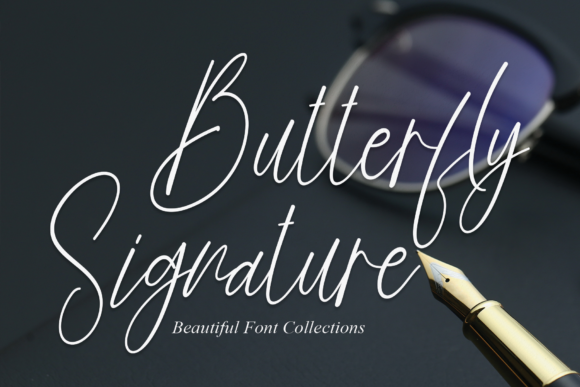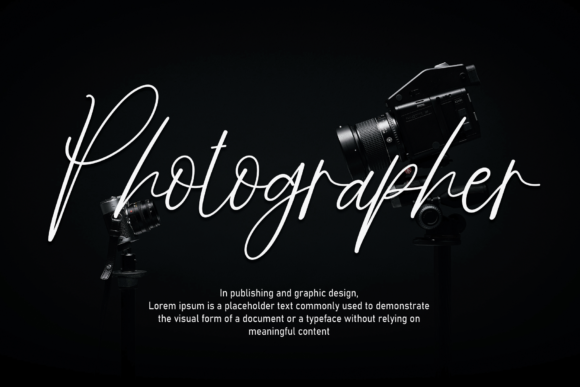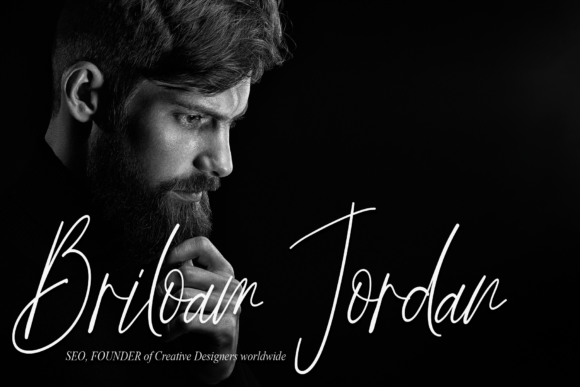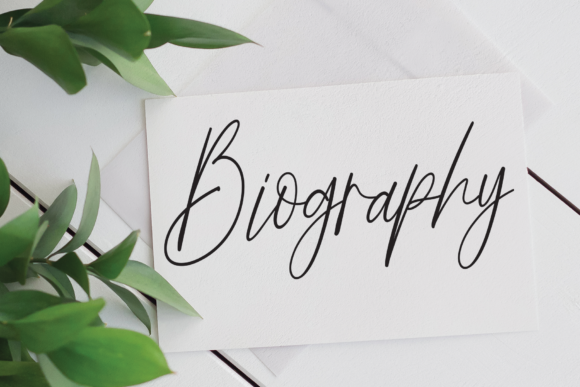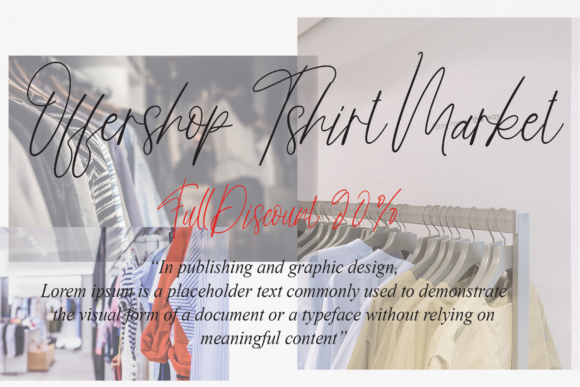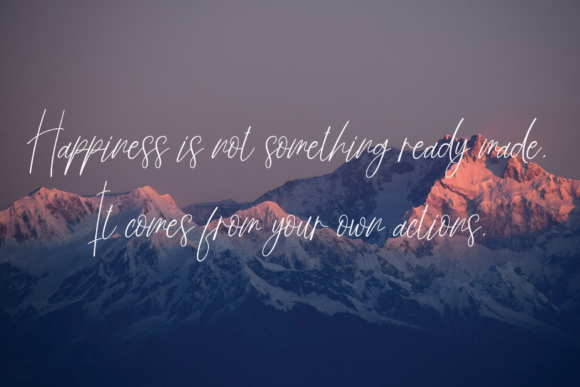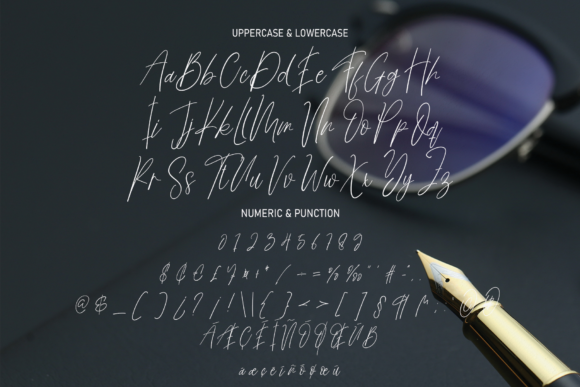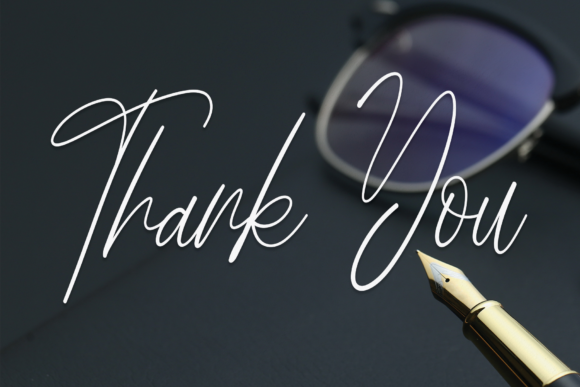
Butterfly Signature Font
About Butterfly Signature Font
Butterfly Signature is an exquisite and fashionable script font that exudes elegance and charm. Its delicate and flowing letterforms make it the perfect choice for a wide range of branding projects, adding a touch of sophistication to logos, t-shirt designs, creative products, and more.
Imagine using Butterfly Signature for a logo design. Its graceful and stylish script can help create a memorable and visually appealing brand identity. Whether it’s for a luxury fashion brand, a boutique café, or a beauty salon, the font’s delicate strokes and intricate details can convey a sense of refinement and exclusivity.
For t-shirt printing, Butterfly Signature can add a unique and artistic flair to apparel designs. Whether it’s a statement tee, a casual fashion item, or a custom-made piece, the font’s fashionable and delicate script can transform the design into a wearable work of art. It can capture attention and make a statement, setting the brand or message apart from the crowd.
Creative products such as packaging, labels, and product tags can benefit from Butterfly Signature’s distinctive style. Its elegance and charm can enhance the overall aesthetic of the product, making it stand out on the shelves and adding a sense of luxury and sophistication to the customer’s experience. Whether it’s a skincare line, artisanal chocolates, or handcrafted candles, the font can elevate the brand’s image.
Butterfly Signature’s versatility also shines in various contexts. It can be used for social media graphics, promotional materials, and advertising campaigns, bringing a touch of elegance to digital and print designs alike. Its delicate and fashionable script can capture the audience’s attention and convey a sense of creativity and artistic expression.
In summary, Butterfly Signature is a delicate and fashionable script font that is a perfect fit for branding projects, logos, t-shirt printing, creative products, and more. Its exquisite and sophisticated appearance can elevate the visual appeal of any design and make it extraordinary in a variety of contexts. By incorporating Butterfly Signature into your projects, you can create a lasting impression and showcase your brand or message with style and grace.